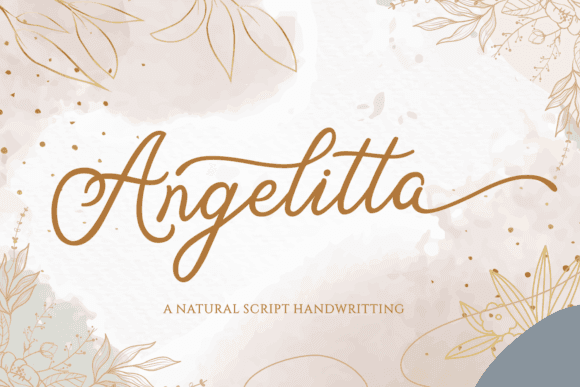
Angelitta Font for Crafting, Logos and Print Projects
Angelitta is a chic, flowing font that blends handcrafted elegance with professional readability. Designed specifically for crafting, branding, and high-resolution print work, it brings charm and sophistication to every design it touches.
This font entity delivers beautifully in upscale logos, event invitations, product packaging, and custom crafts. Its calligraphic form provides character without sacrificing clarity, making it a reliable choice for both print and digital use.
- Luxury logos and monograms
- Event invitations and thank-you cards
- Product labels and printed packaging
- Craft signage and framed quotes
- Editorial headlines and print layouts
- Elegant and refined calligraphy style
- Ideal for premium print and digital branding
- Works beautifully in both large and small formats
- Highly legible with flowing, artistic appeal
Q: What design style is Angelitta?
A: Angelitta is a modern calligraphy font ideal for elegant crafting, print layouts, and logo creation. Its fluid strokes and sophisticated curves make it versatile for a variety of projects, from wedding invitations to branding materials. For those seeking a complementary style, the angola beach font for crafting offers a playful yet chic alternative. Together, these fonts can elevate your designs, making them stand out with an artistic flair.